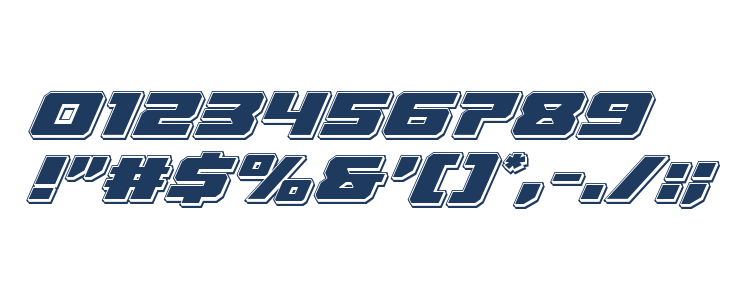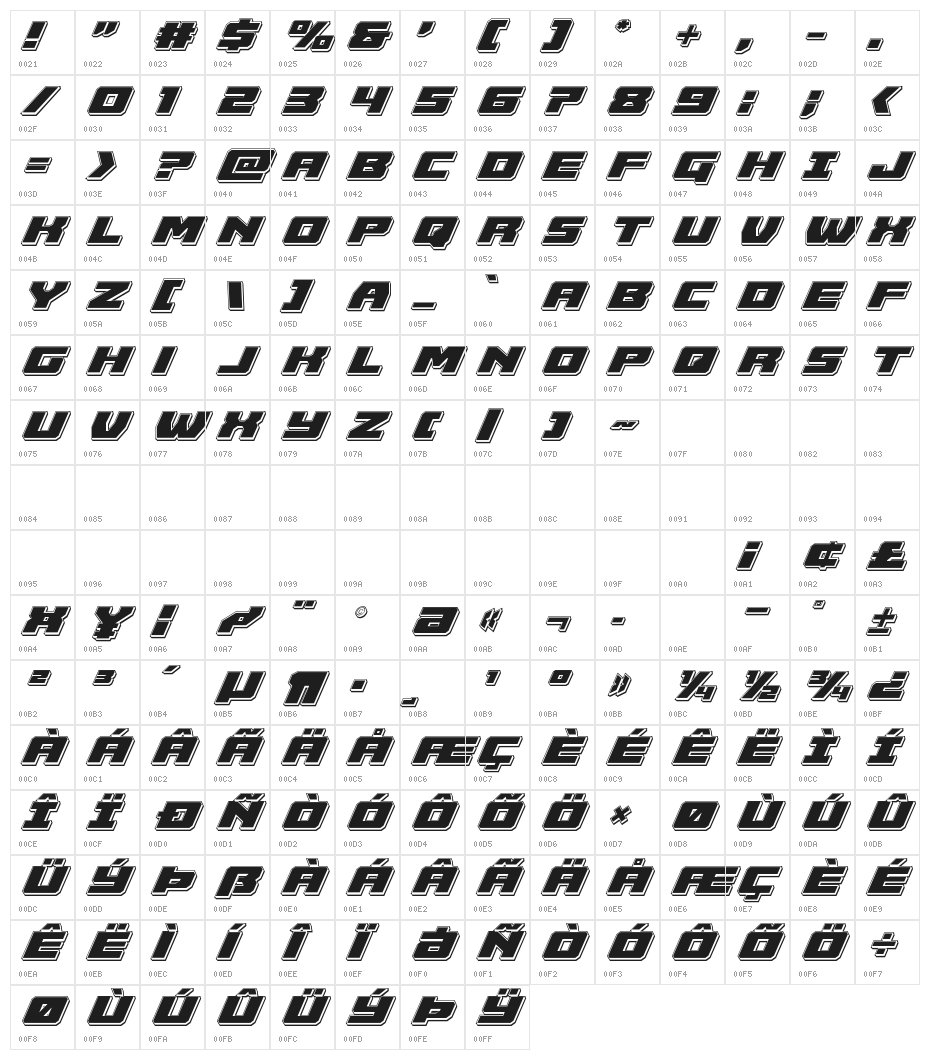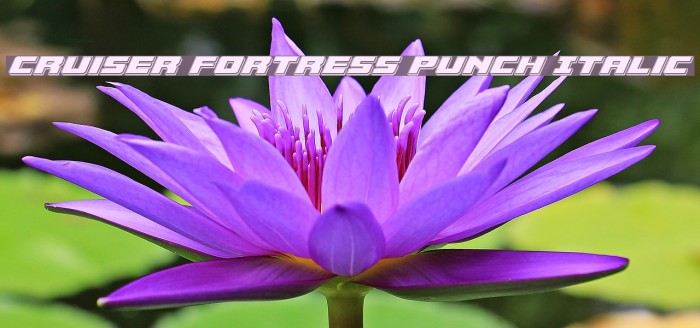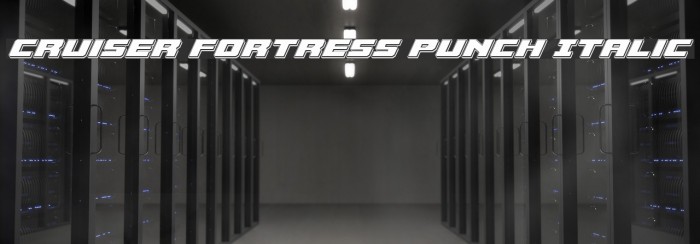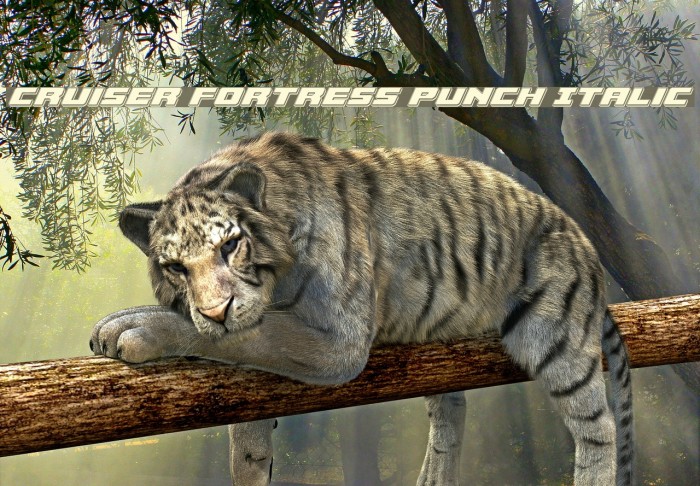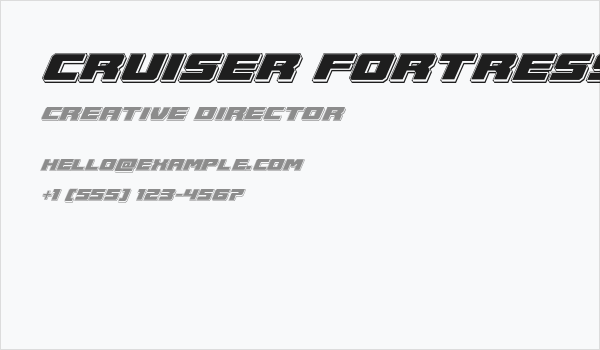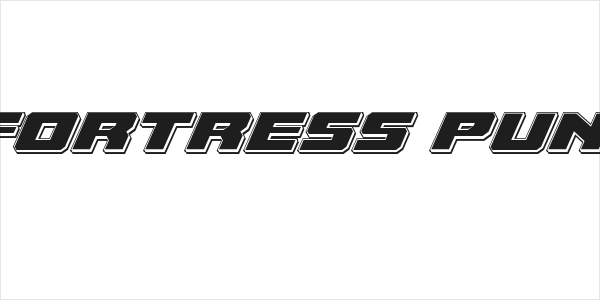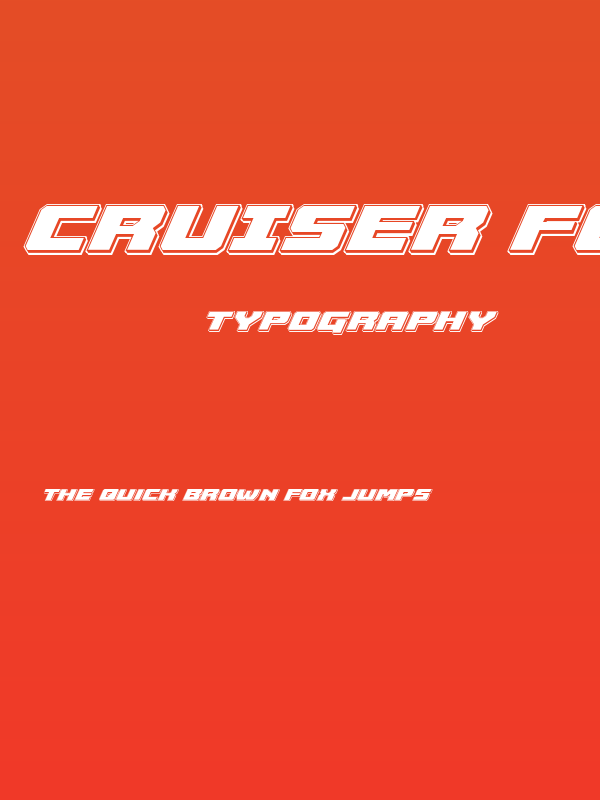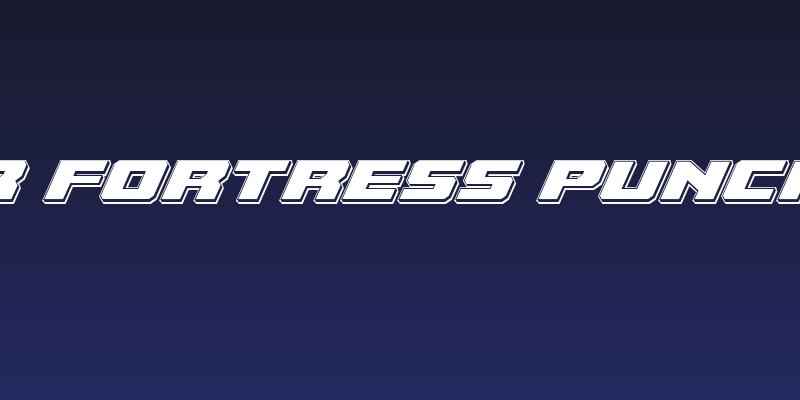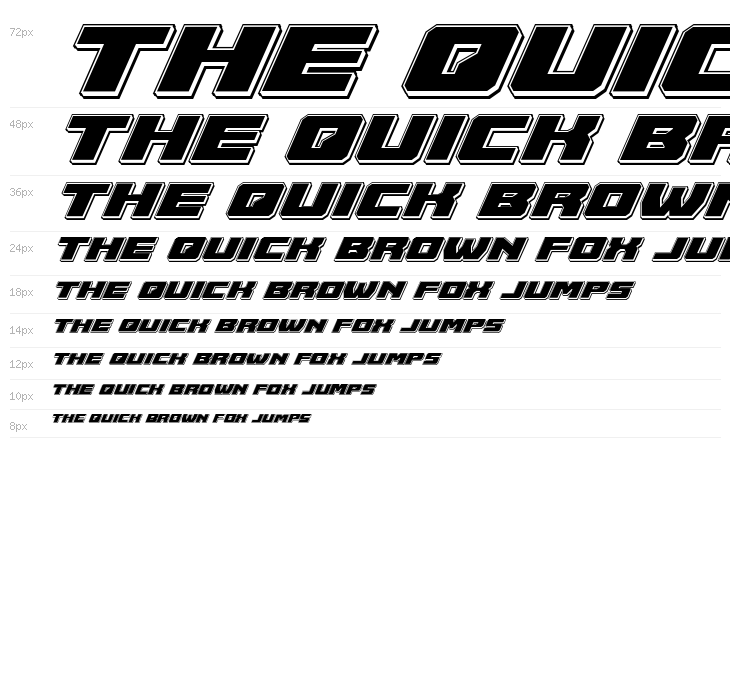
Cruiser Fortress Punch Italic Font
Cruiser Fortress Punch Italic Description
This font features a bold, italicized style with a strong, dynamic presence. The characters are designed with a modern, futuristic aesthetic, incorporating sharp angles and a three-dimensional effect that gives them a sense of depth. The uppercase letters are particularly striking, with a consistent width and a slight slant that enhances their boldness. The numbers and special characters maintain this cohesive style, ensuring versatility across different uses. The font's design is both eye-catching and readable, making it suitable for impactful headlines and branding.
| Proposed Projects | Ideal for sports branding, video game titles, futuristic posters, and dynamic logos. |